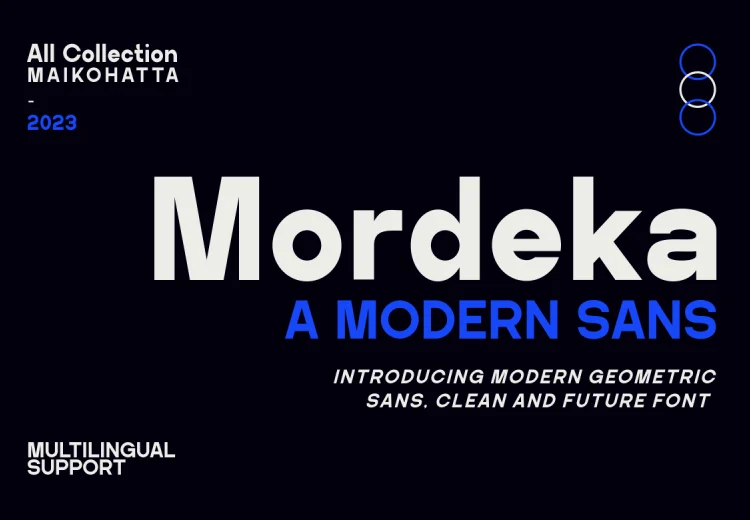
Mordeka Font
Mordeka is an assertive and bold sans serif font that delivers a perfect blend of elegance, professionalism, and modern aesthetics. Its clean and simple design makes it highly versatile for graphic design and contemporary typography projects.
Whether you’re working on branding, headlines, or digital layouts, Mordeka ensures a striking and refined presence. Its bold structure adds authority, while its minimalist appeal keeps your designs timeless and sophisticated.
Ideal for logos, posters, or any creative work requiring a professional edge, Mordeka adapts seamlessly to various design needs.